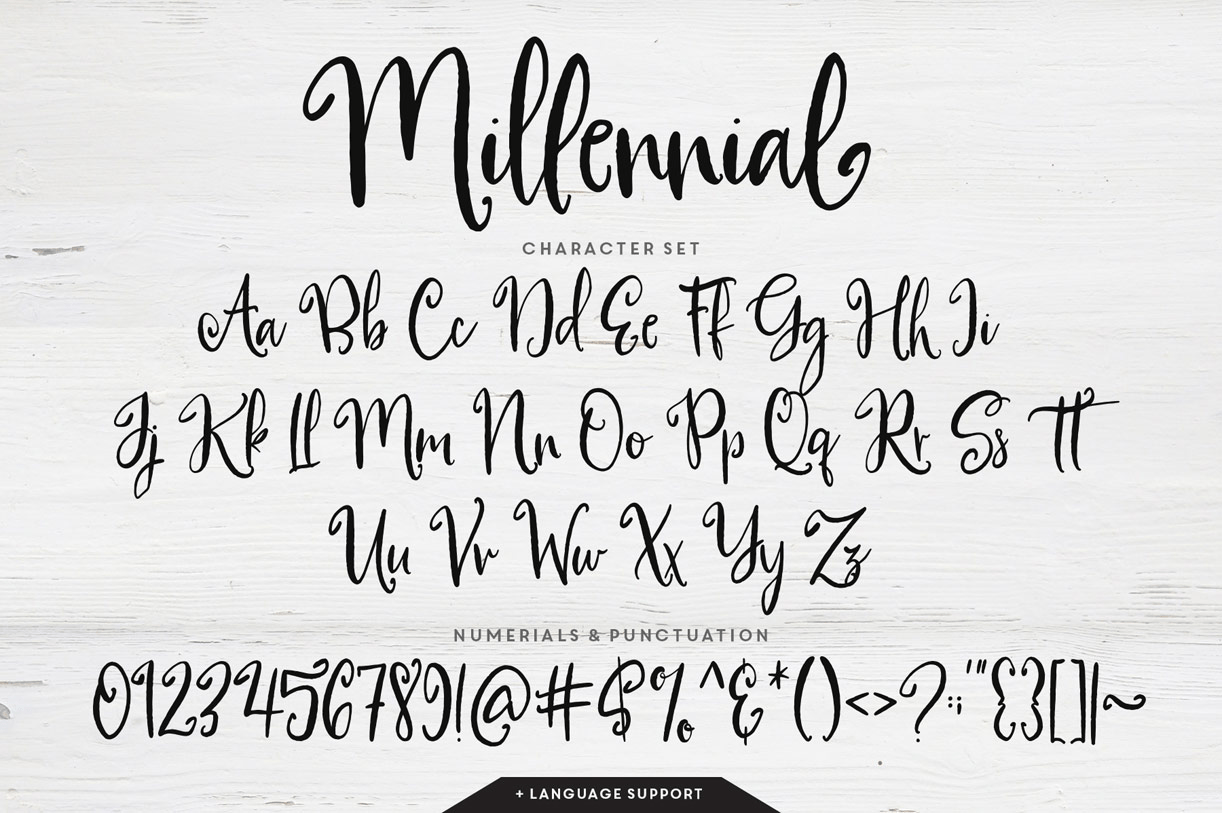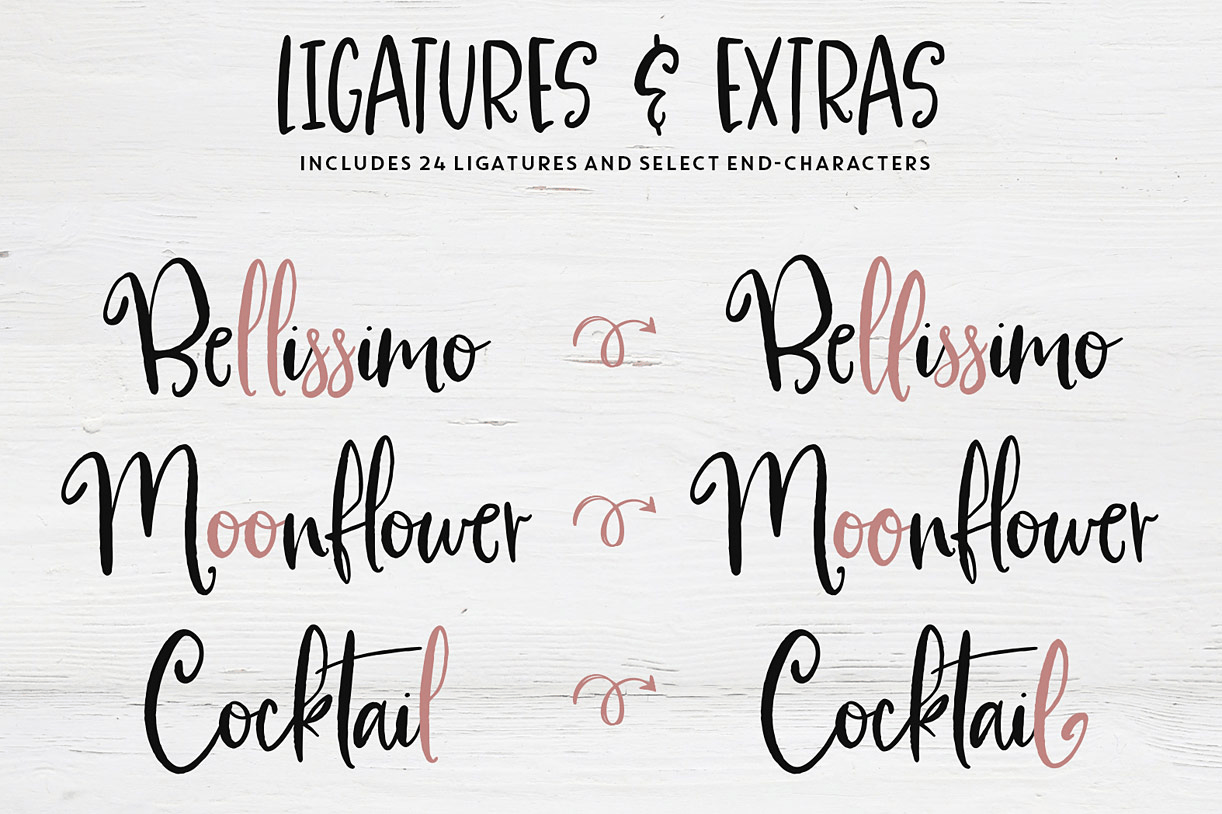
About Millennial Script
Introducing Millennial Script! A flirty, youthful handwriting font with a quick stroke and a dancing baseline. Use Millennial for hand-written branding, headlines, product packaging, email signatures, advertising campaigns, book covers and more! Millennial…